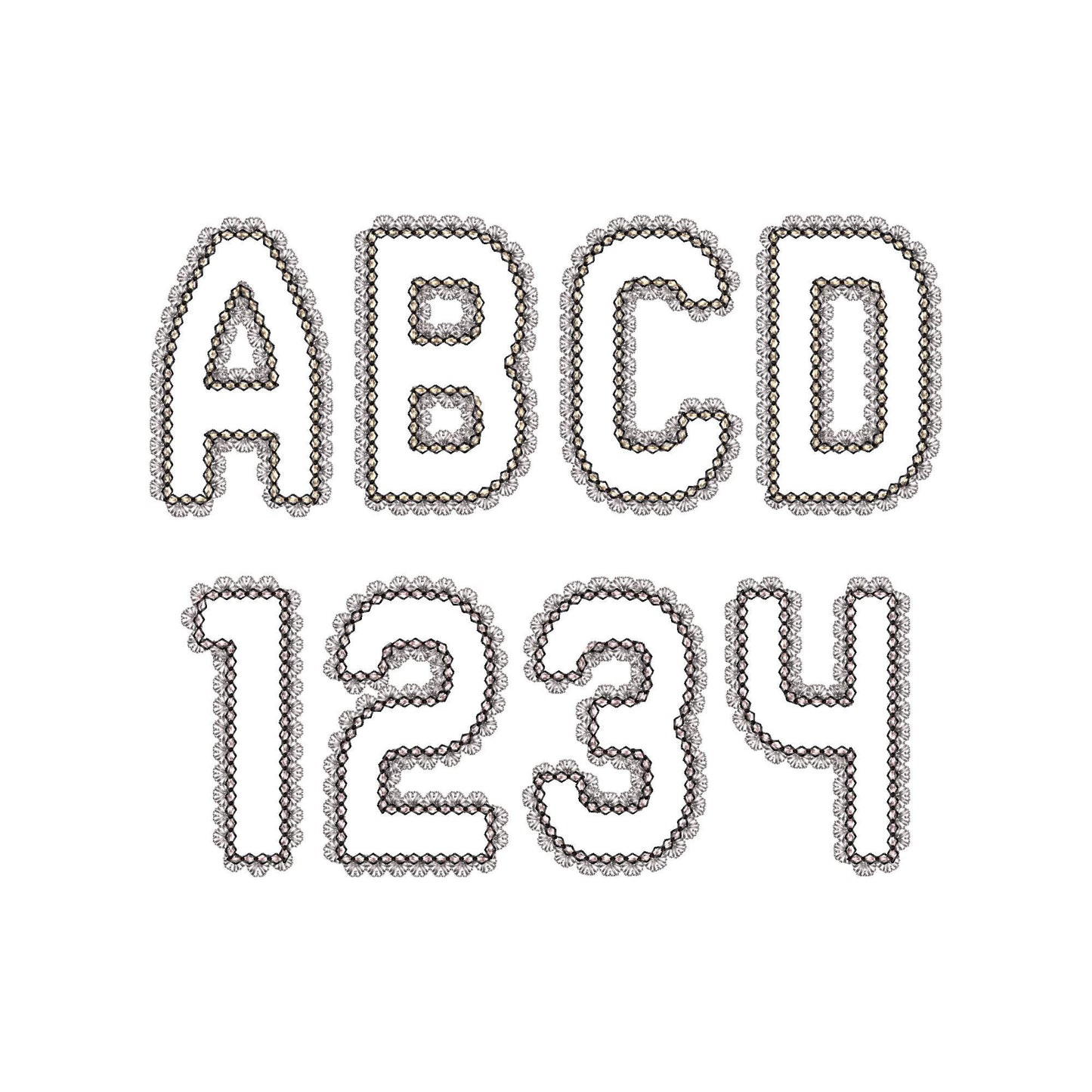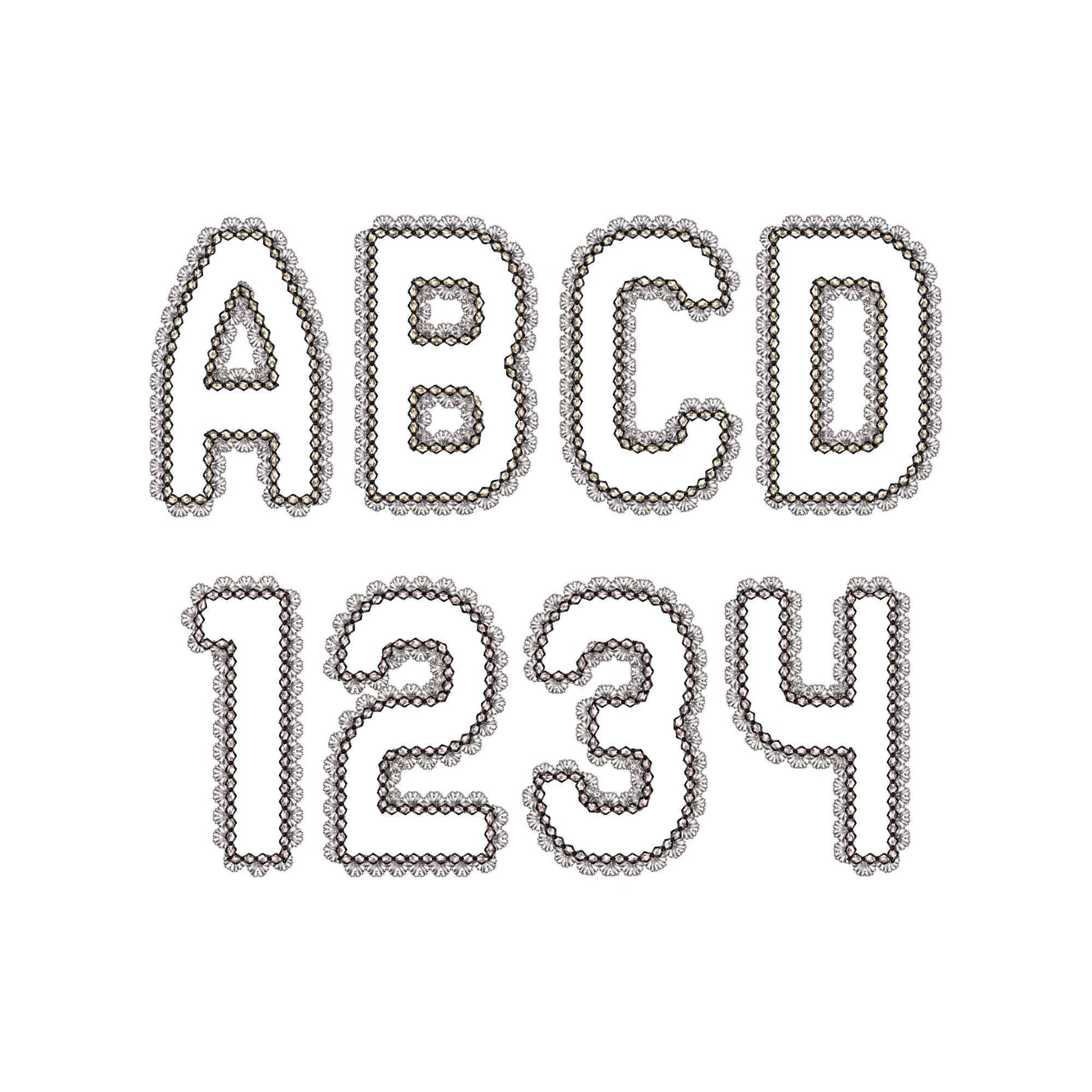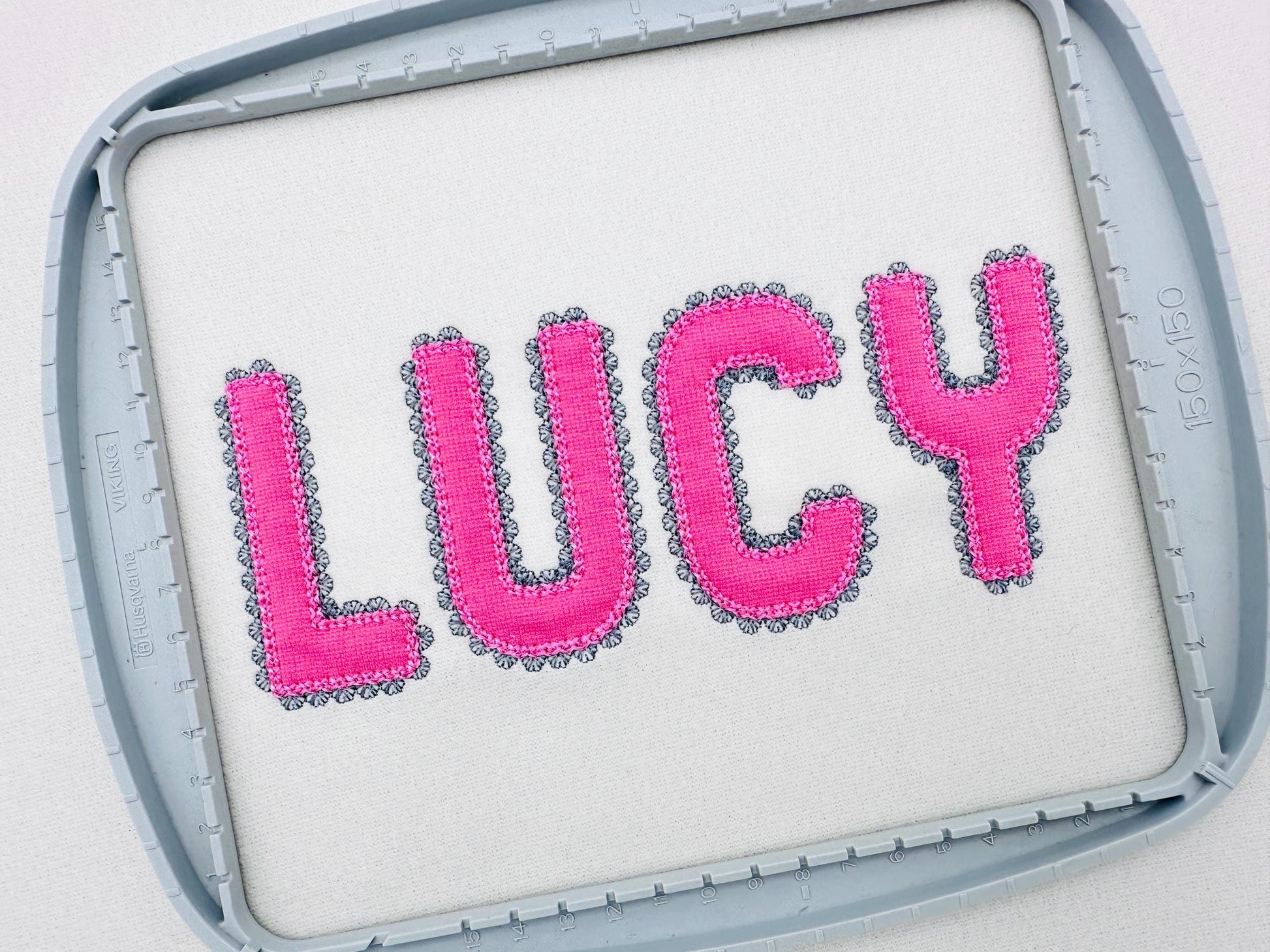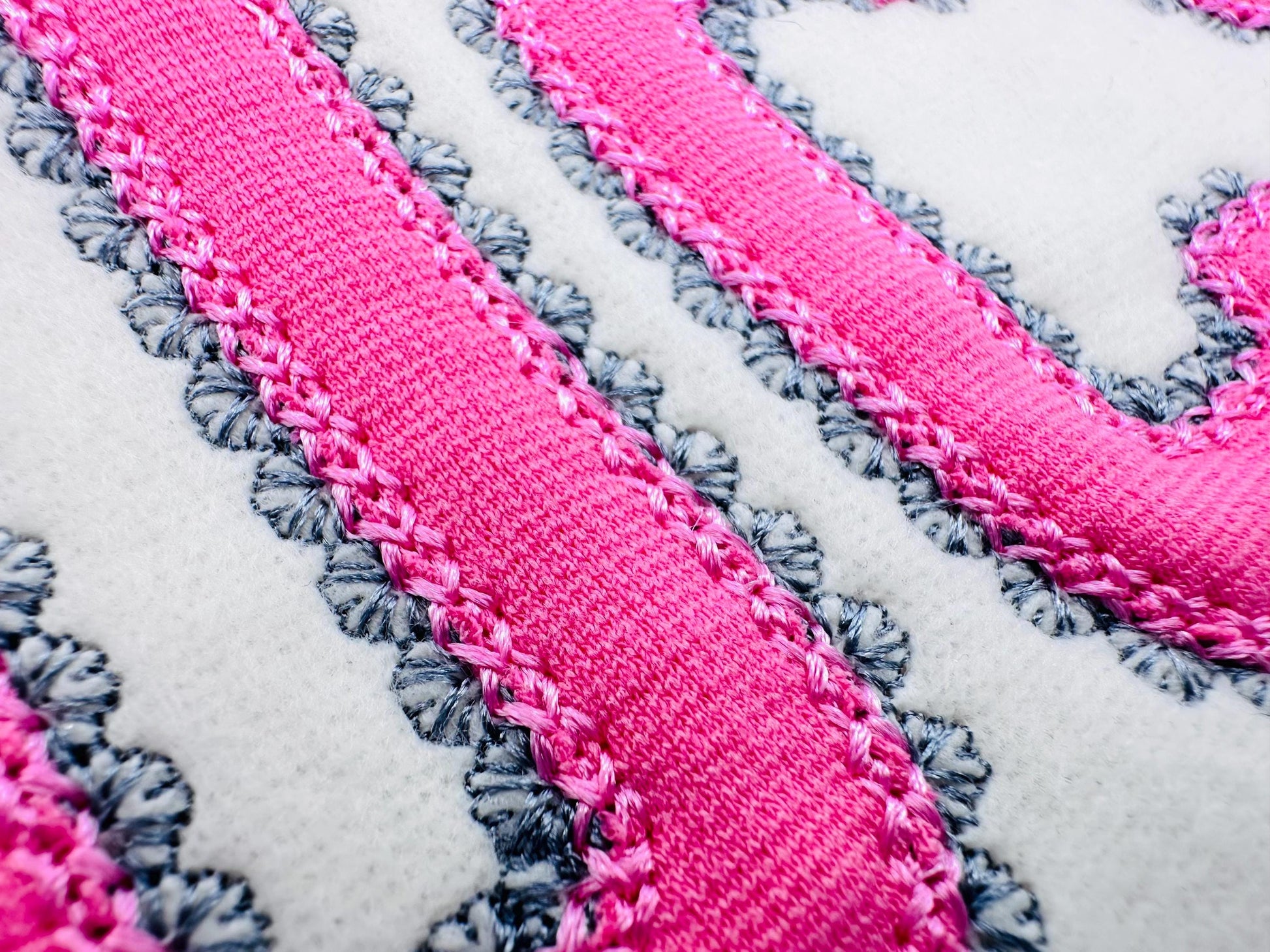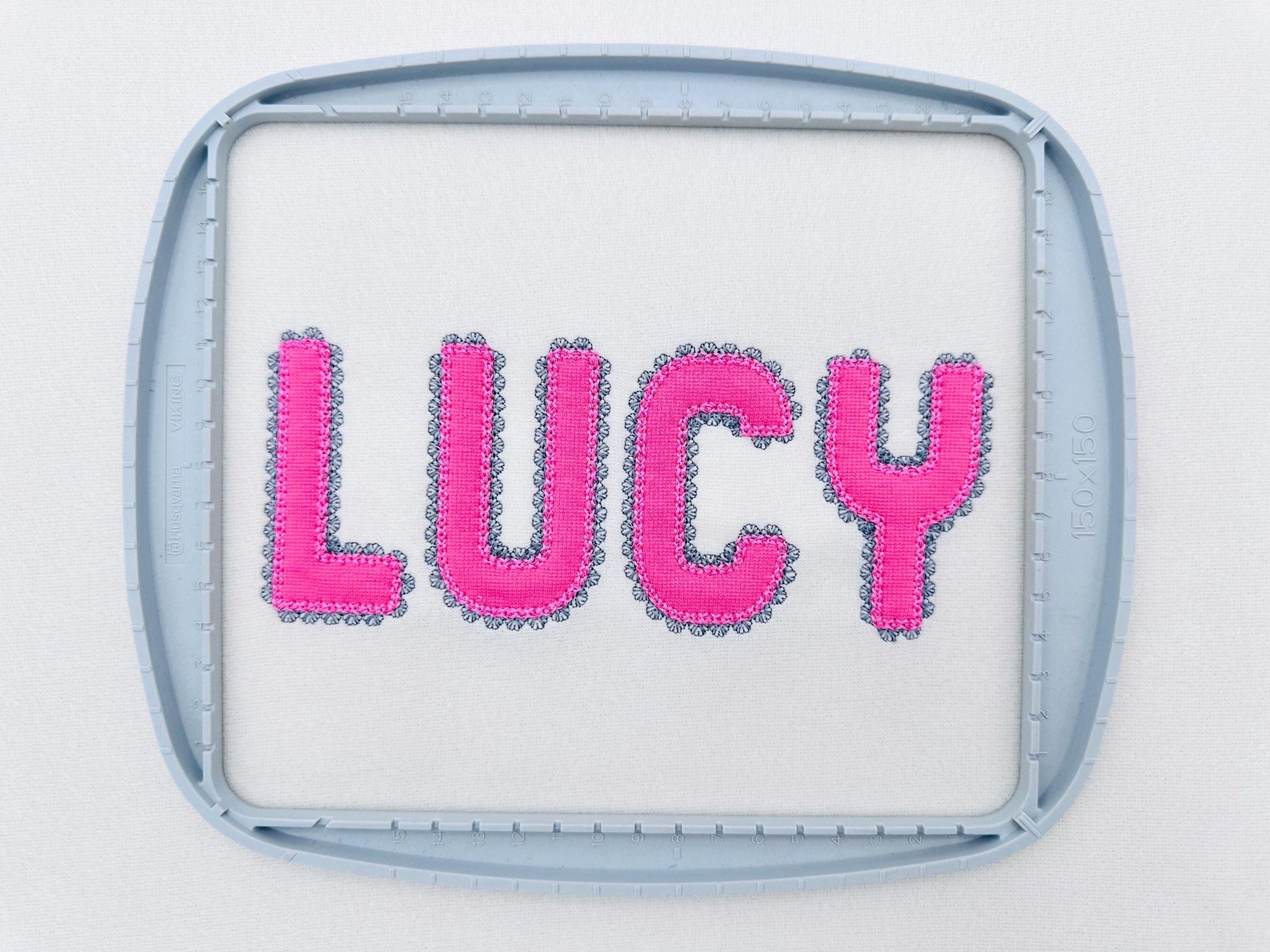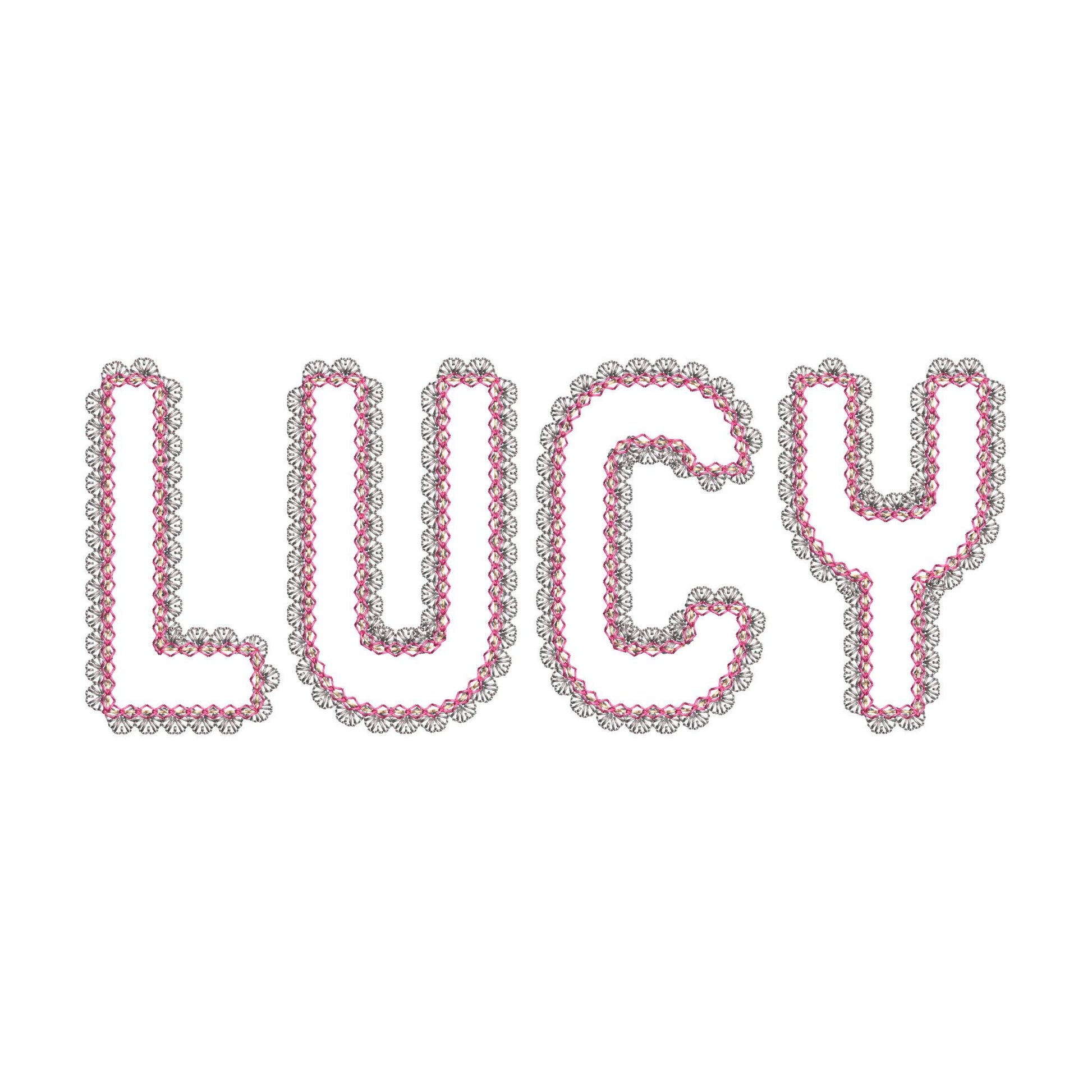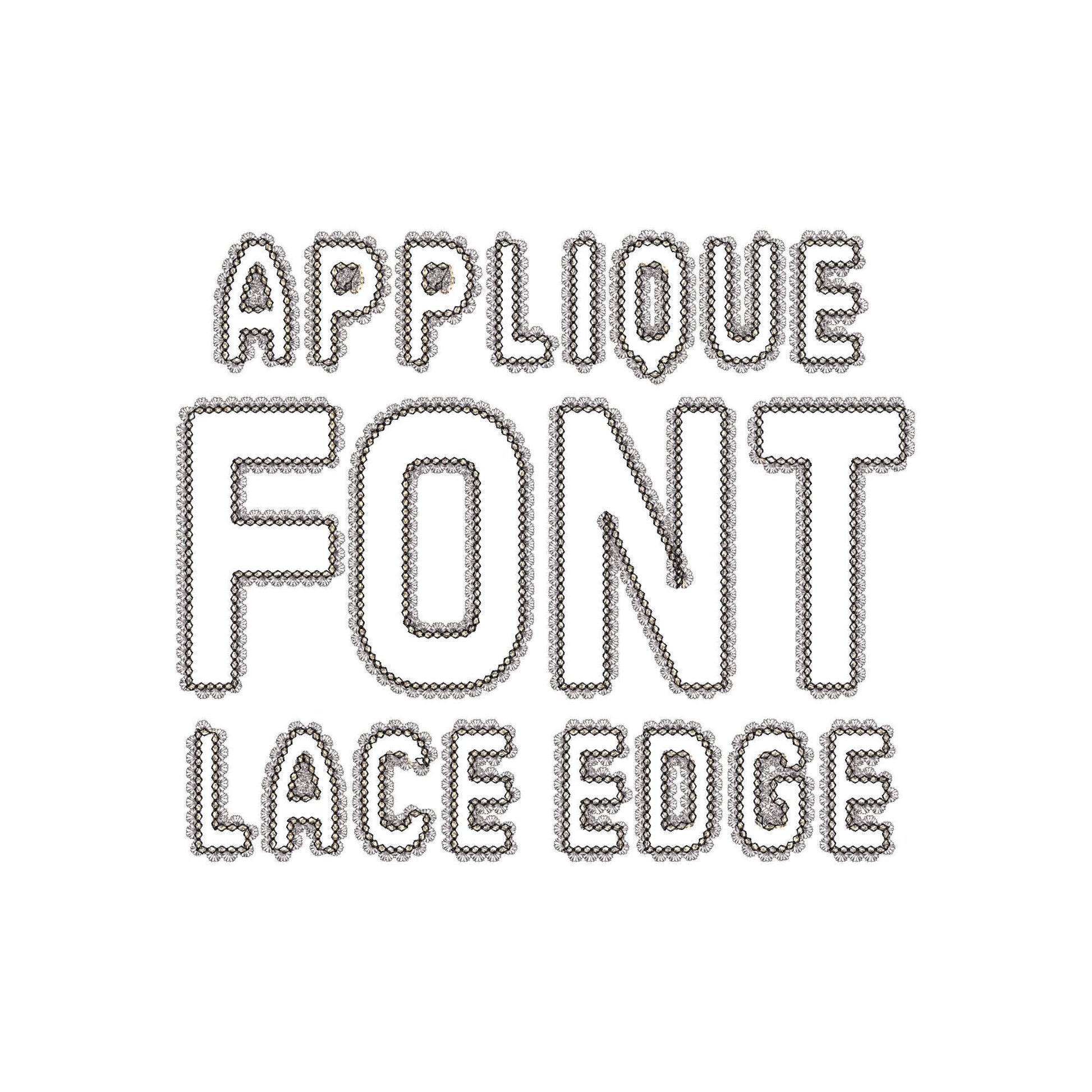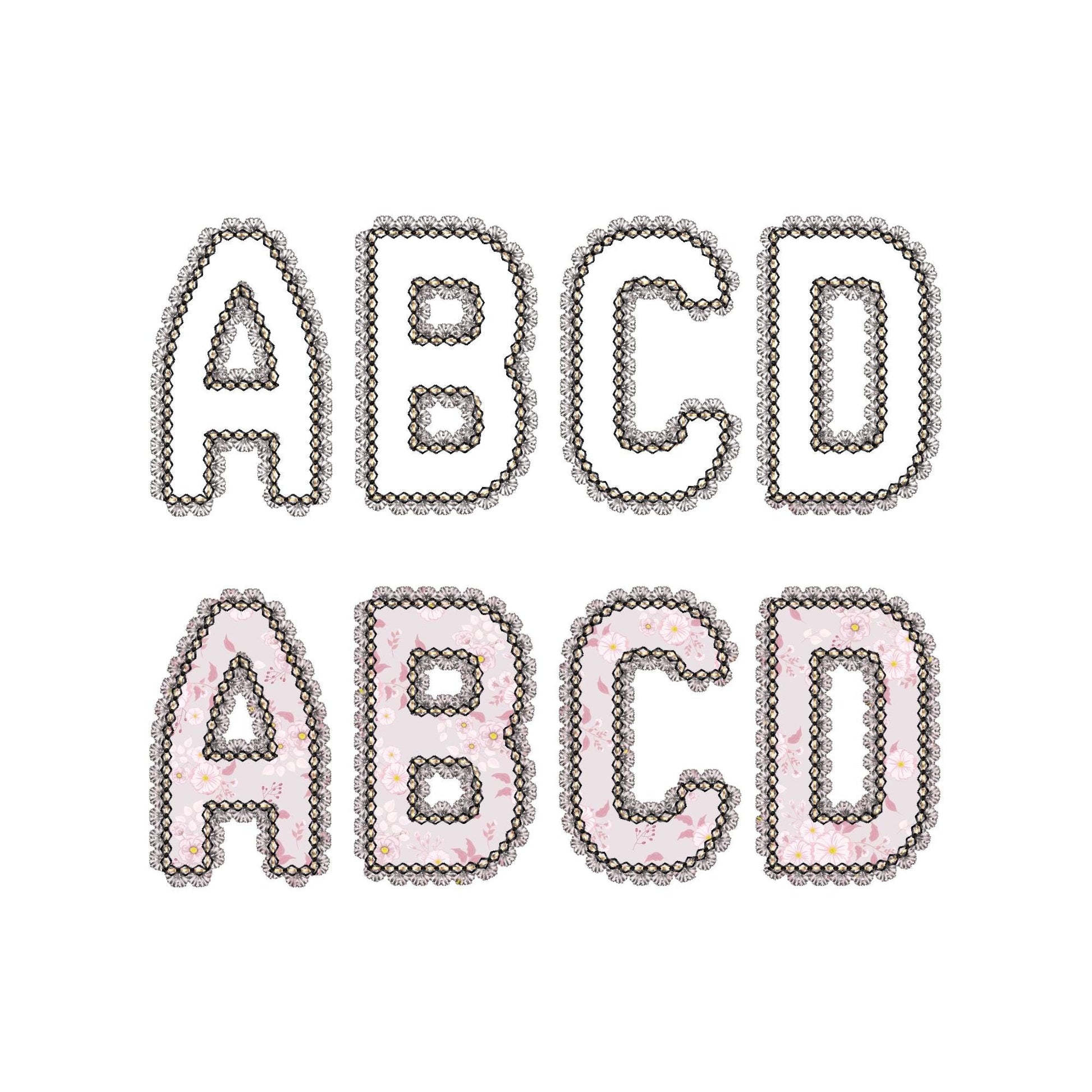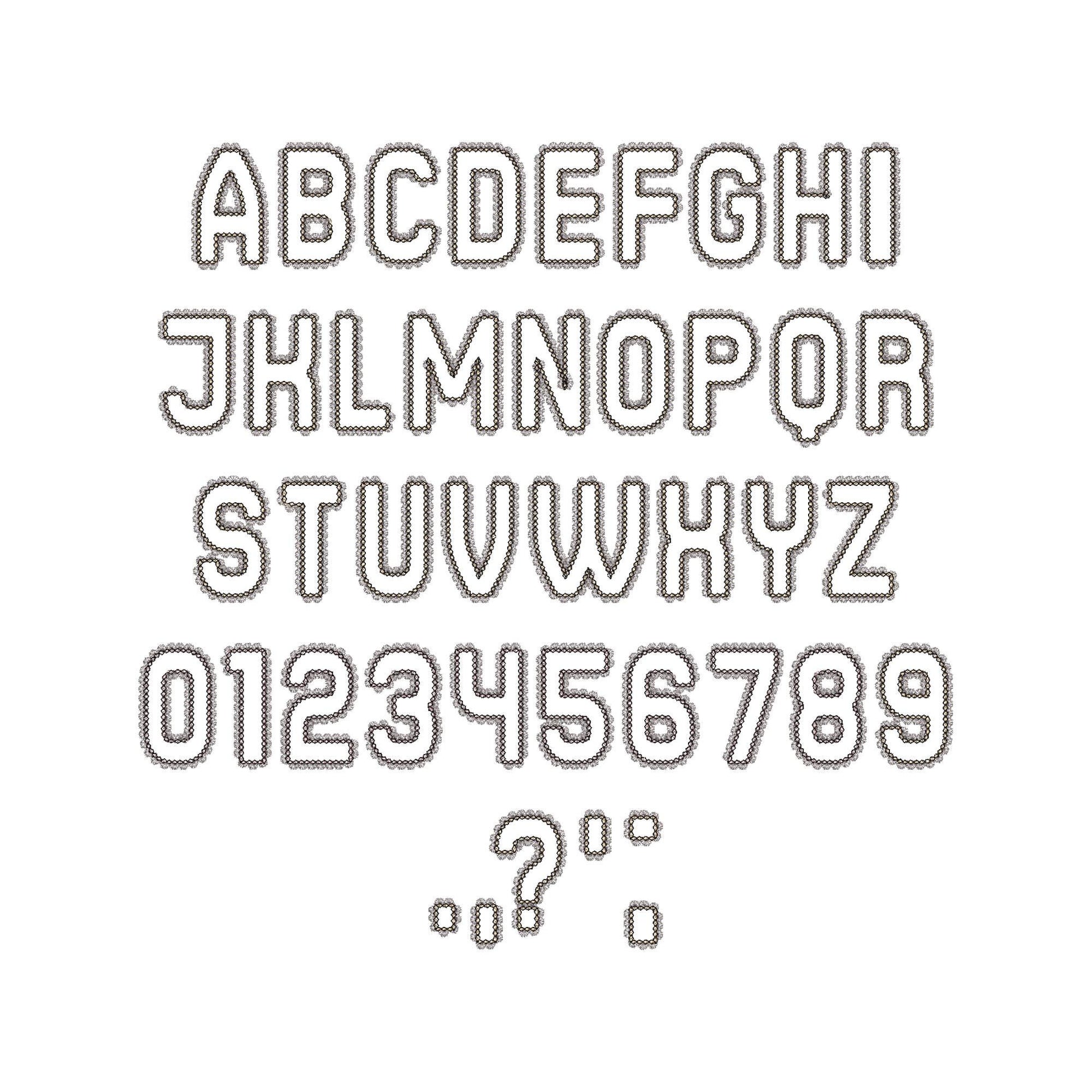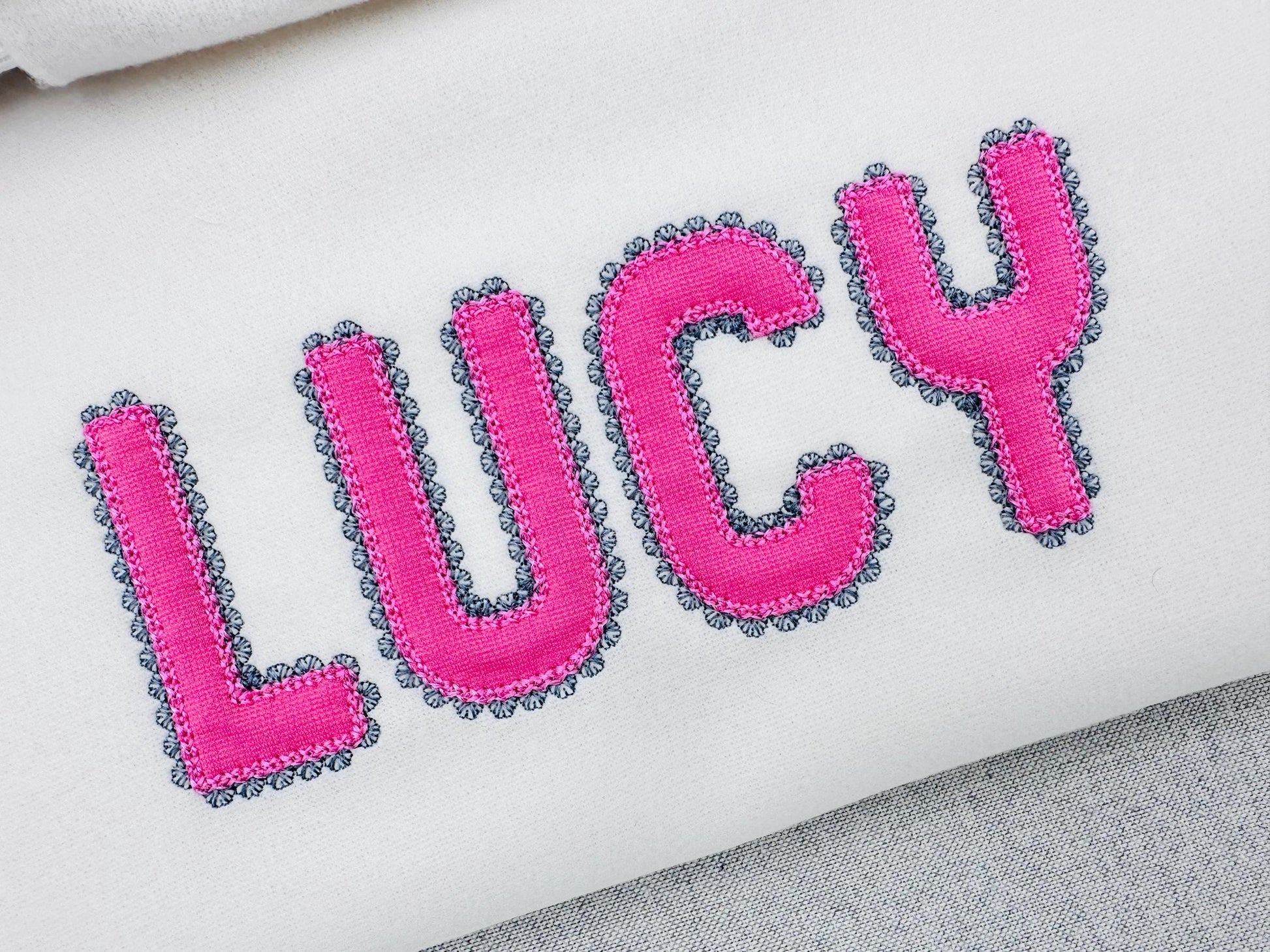
Lace Edge Font Applique
Included: Uppercase A-Z, Numbers 0-9, Punctuation
A vintage-style applique font with a delicate lace edge. Pretty for girls' names, monograms and handmade gifts.
The letters come in five sizes: 2, 2.5, 3, 3.6 and 4.3 inches. Applique letters with a lace-style edge; the fabric shows through the lace. Includes uppercase letters A to Z, numbers 0 to 9 and punctuation.
• Lace edge applique font
• Uppercase A to Z, numbers 0 to 9, punctuation
• 5 sizes, 2 to 4.3 in